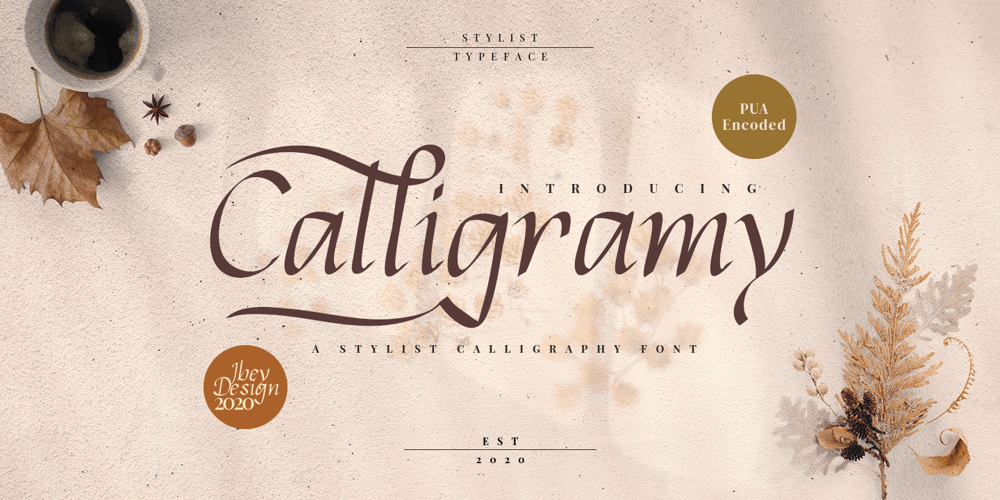
Calligramy Font Family was designed by Ikrar Bey Khubaib and published by IbeyDesign. Calligramy contains 1 styles and family package options. Calligramy Calligraphy Script Font is a unique stylish calligraphy font. It’s perfect for adding a personal charm to your photography, watermarks, social media posts, advertisements, logos & branding, invitations, product designs, labels, stationery, wedding designs, product packaging, special events, or anything that need calligraphy or handwriting taste.